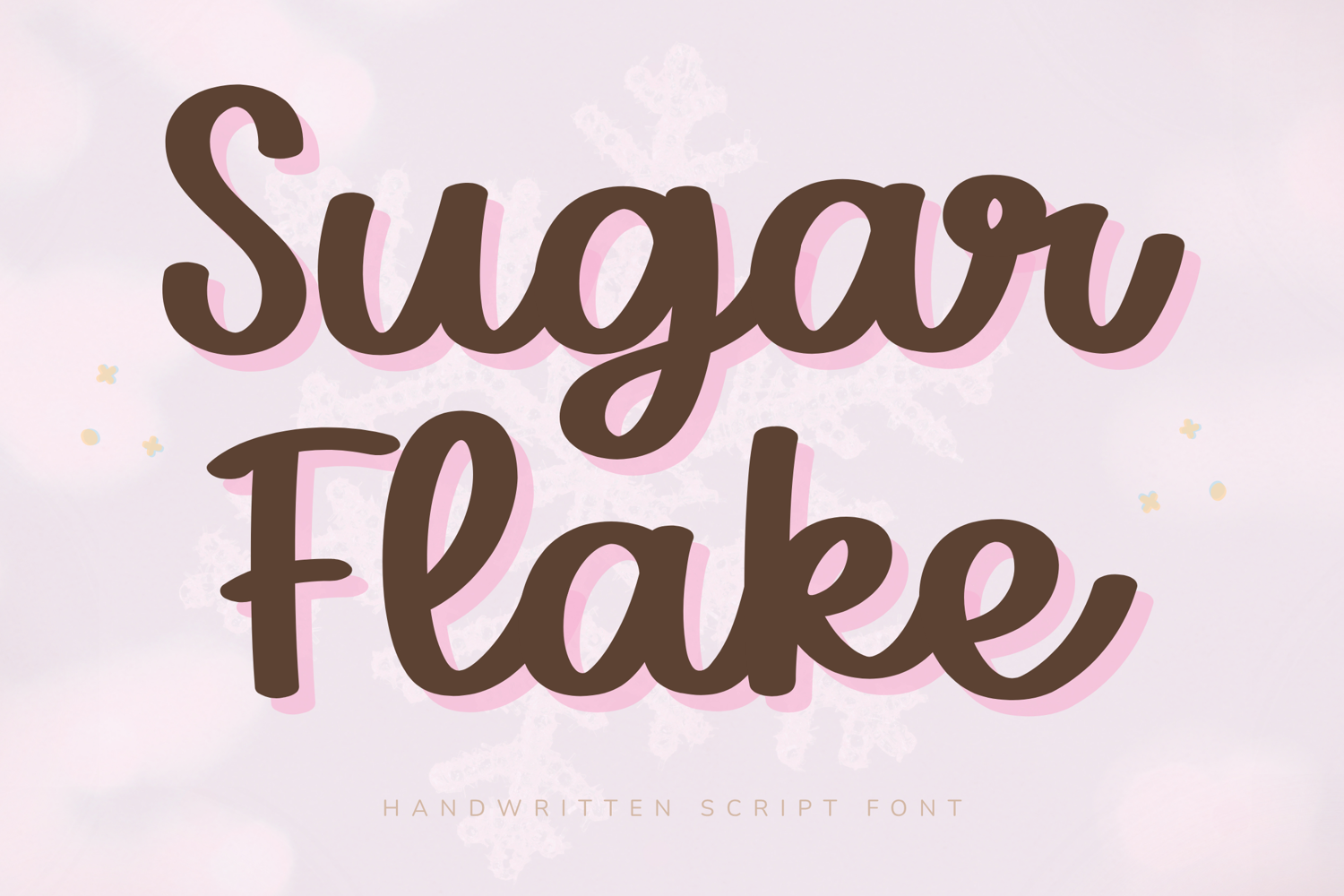
Sugar Flake - Handwritten Script Font
Sugar Flake – Handwritten Script Font
Sugar Flake is a sweet and playful handwritten script font inspired by sparkling sugar crystals, soft pastel colors, and magical winter moments. With bold rounded strokes, smooth curves, and a cheerful handcrafted style, this font adds warmth and charm to every creative project.
Perfect for Cricut crafters, planner lovers, teachers, and owners, Sugar Flake brings a delightful and whimsical touch to stickers, journals, logos, packaging, and social media graphics. Its sugary personality makes every design feel cozy, feminine, and full of joy.
Key Features:
Uppercase and lowercase letters
Numbers and punctuation
Bold rounded handwritten style
Smooth flowing curves
Highly readable and playful
Perfect For:
Cricut and Silhouette projects
Planner and journal covers
Sticker sheets and printables
Teacher worksheets
Logo & Branding
Product packaging
T-shirt and mug designs
Social media graphics
Holiday and winter designs
Best Use Cases:
Winter stickers
Planner titles
Journal covers
Holiday graphics
Boutique logos
Product labels
Brand Mood:
Sweet
Playful
Cozy
Feminine
Whimsical
Festive
Design Style:
Sugar Flake combines soft handwritten lettering with a fun and festive personality. The bold rounded forms create a font that feels sweet, approachable, and highly versatile for both everyday and seasonal projects.